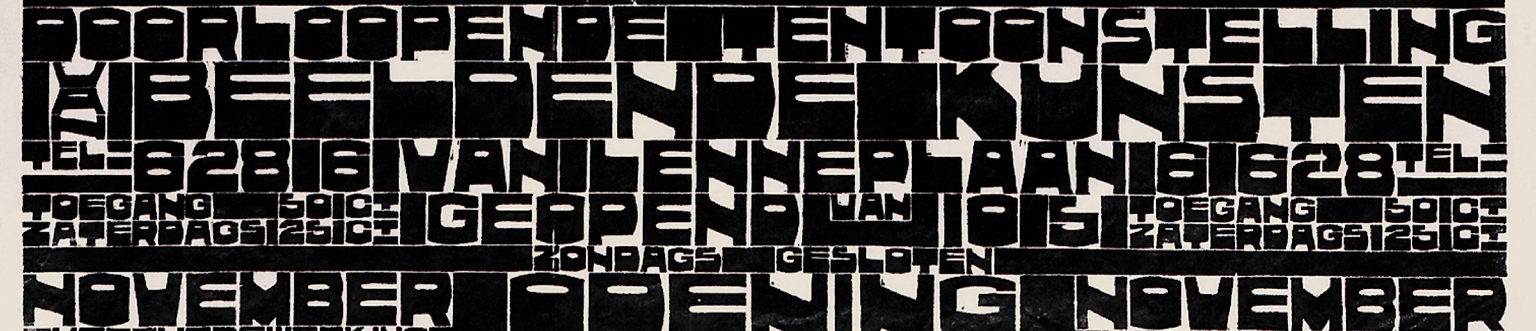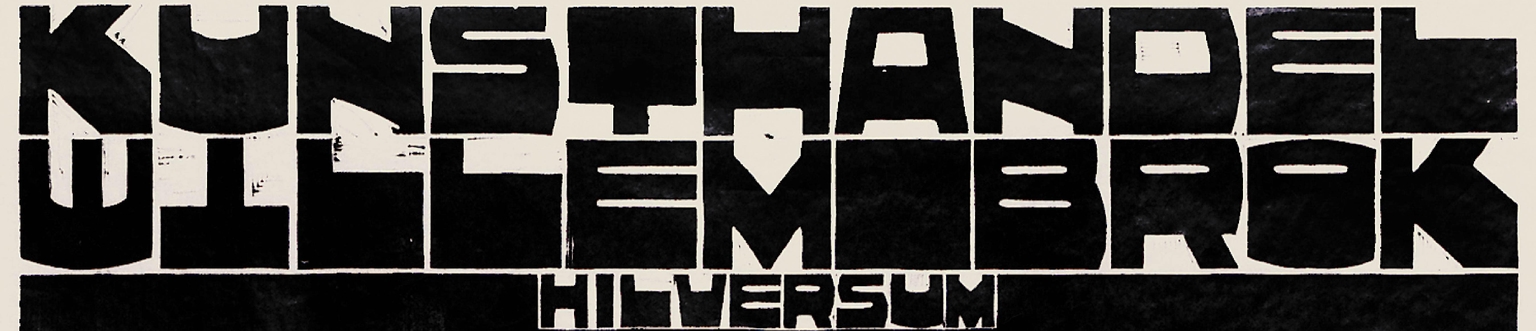
Kunsthandel
Kunsthandel is a display typeface designed by Ramiro Espinoza and inspired by the distinctive letterforms found in a well-known woodcut created by Dutch artist and activist Chris Lebeau (1878–1945) to advertise the Willem Brok art supply store in Hilversum, Netherlands. The original design reflects Lebeau’s characteristic balance of modular structure and expressive flair—an approach that established him as one of the most original visual voices in early twentieth-century Dutch graphic art.
Espinoza carefully reinterpreted these striking forms into a contemporary digital typeface, refining proportions and expanding the character set while preserving the tactile quality of the woodcut. Kunsthandel is well suited for logos, posters, editorial design, websites, video games, museum graphics, and cultural projects that seek a typeface combining historical depth with modern versatility and the unmistakable touch of Dutch craftsmanship.